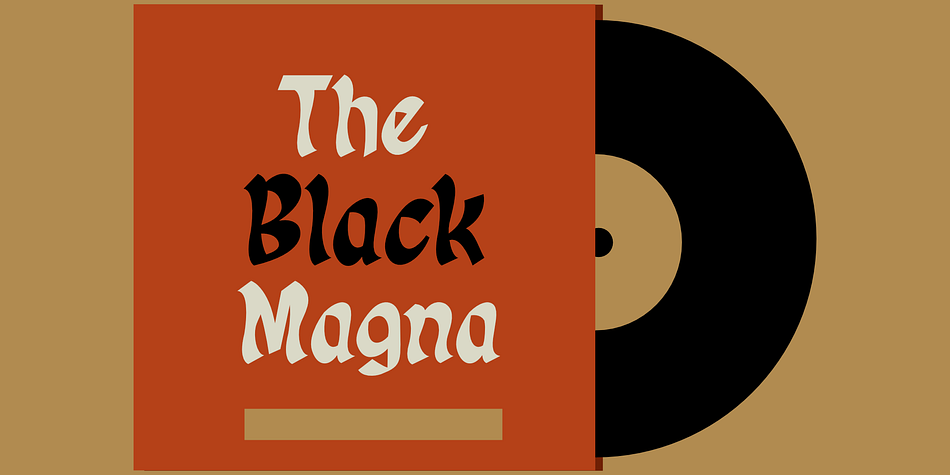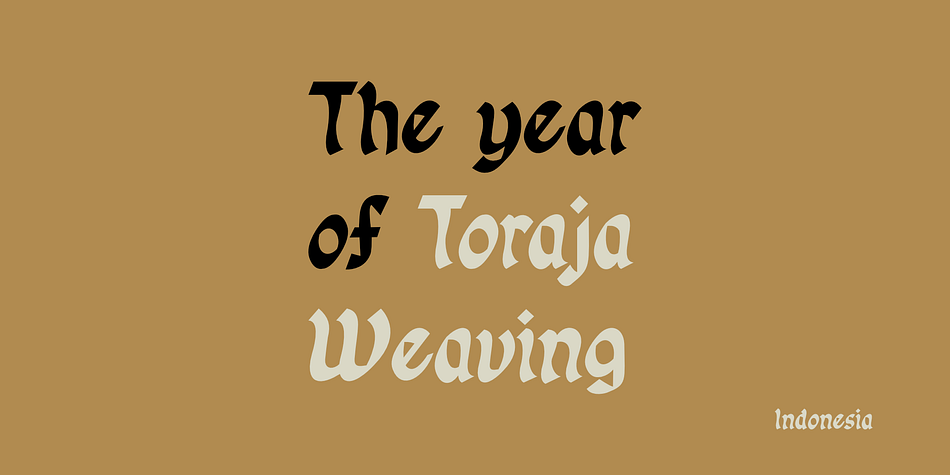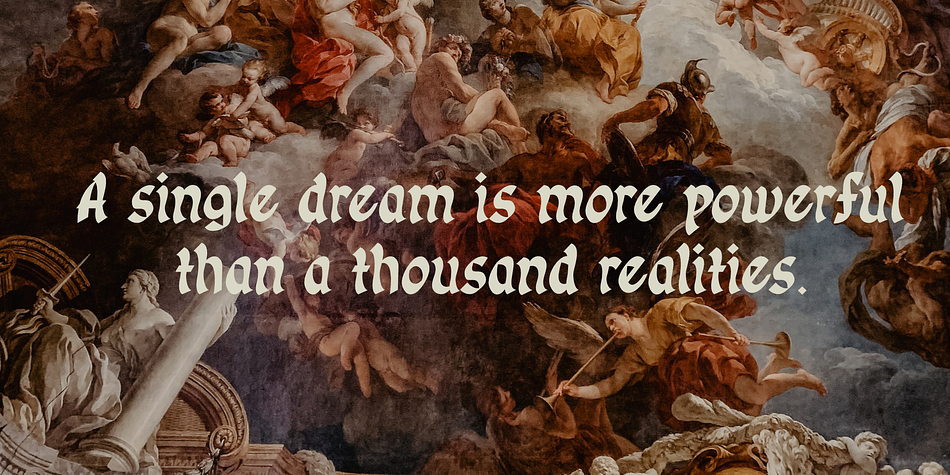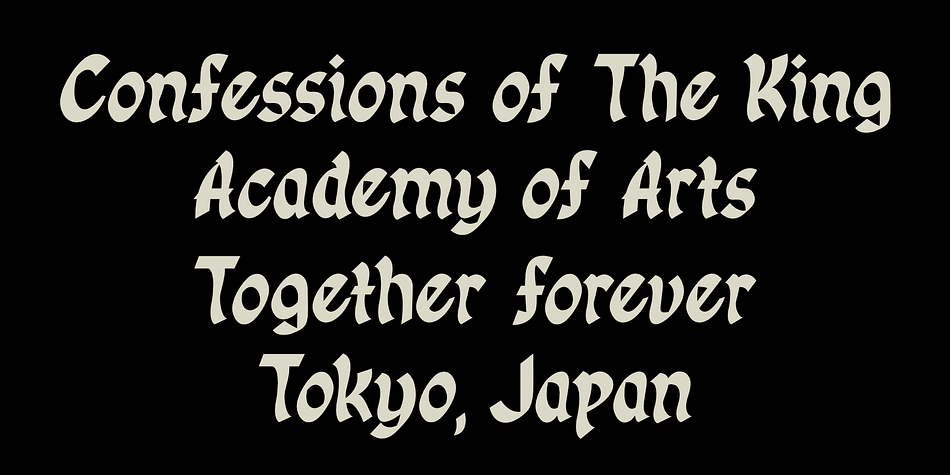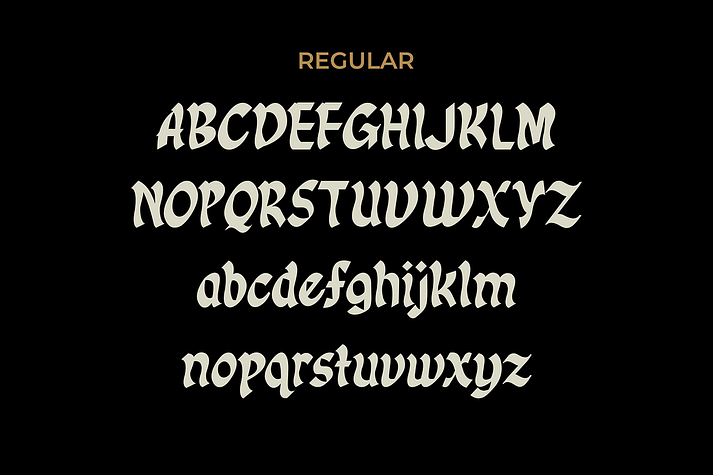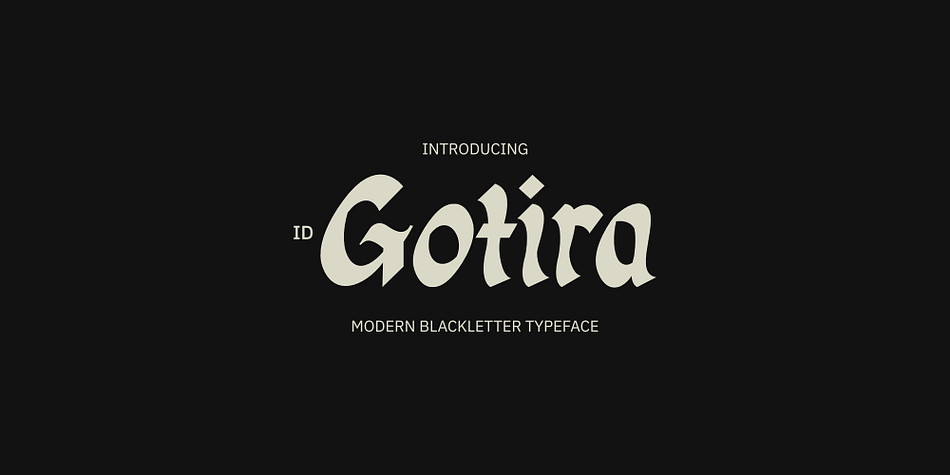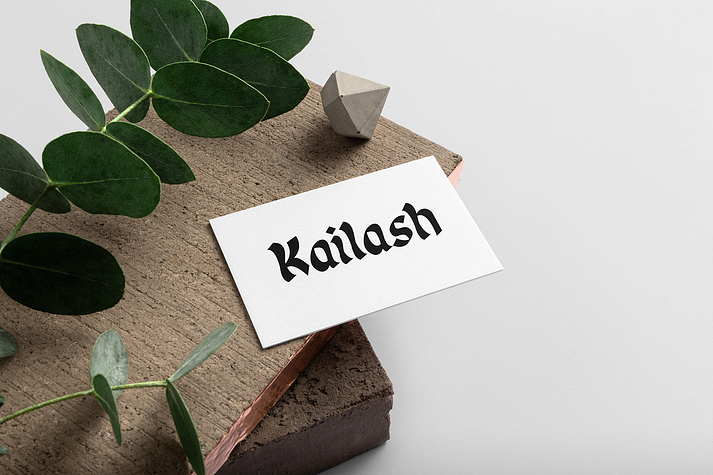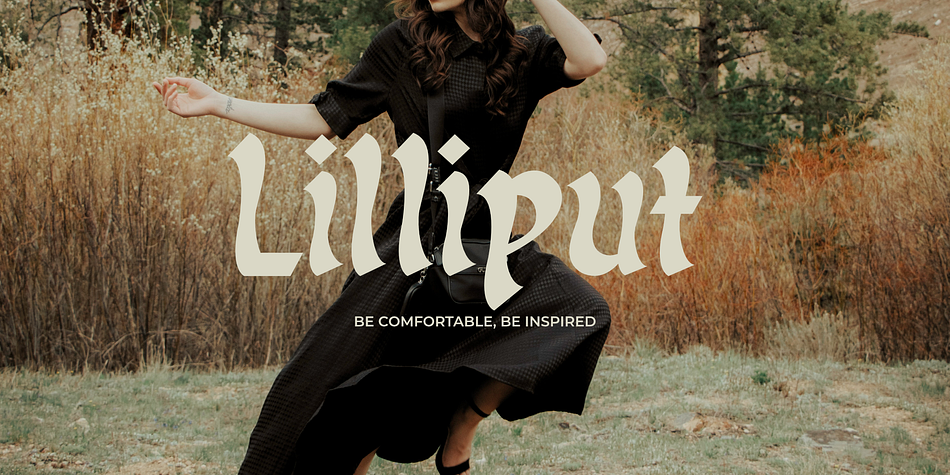
ID Gotira
Designed by Swati Bhatnagar, ID Gotira is a blackletter and historical font family published by Izouuss Design.
Inspired by many Blackletter styles, ID Gotira Blackletter is a contemporary take of the historic Blackletter, also sometimes referred to as Old English. Modern, versatile, while not losing it’s classic touch, it’s also equipped with multi-language support and works best for headlines, body text, branding, packaging and posters.